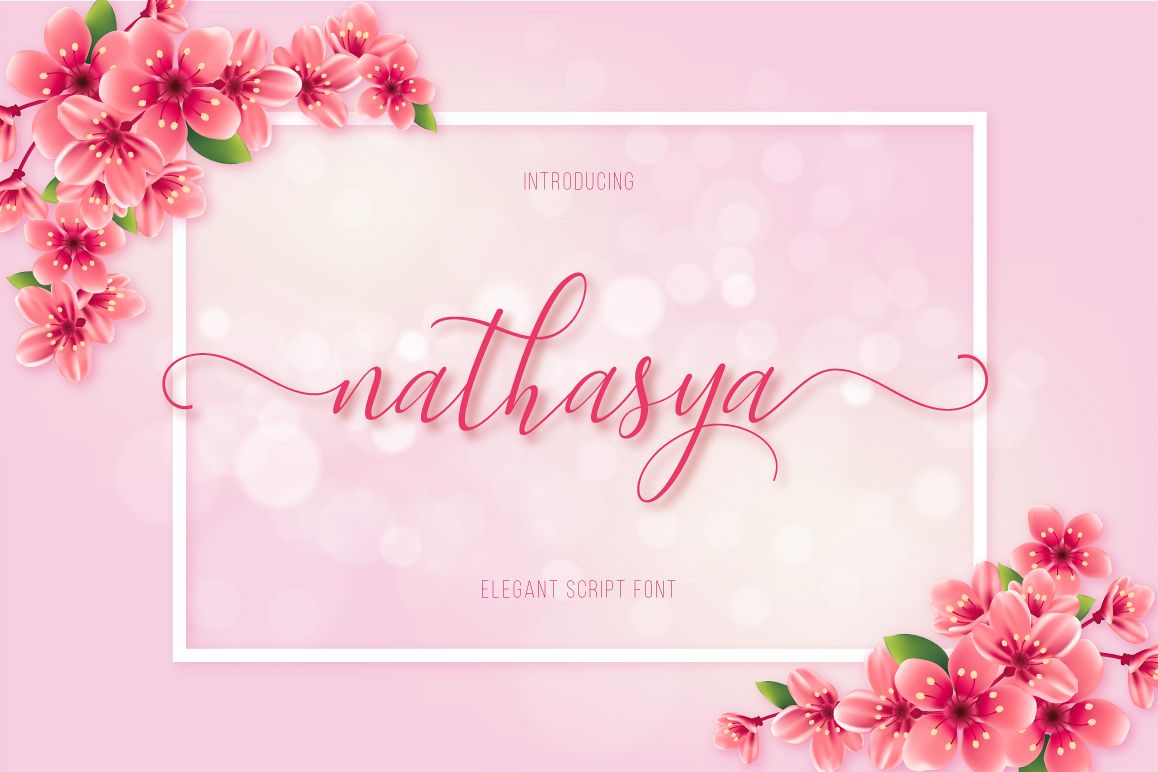
Nathasya Script
Nathasya-Regular
Nathasya
Nathasya a  fresh & modern script with a handmade calligraphy style, decorative characters So beautiful on invitation like greeting cards, branding materials, business cards, quotes, posters, and more!!
Foreign Languages Support:
ÀÁÂÃÄÅÇÈÉÊËÌÍÎÏÐÑÒÓÔÕÖØÙÚÛÜÝßàáâãäåæçèéêëìíîïðñòóôõöøùúûüýÿ